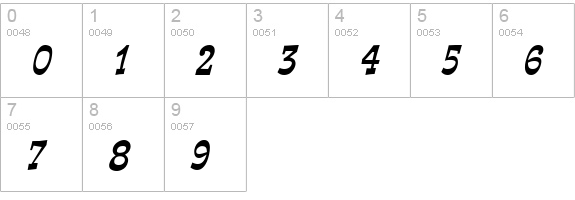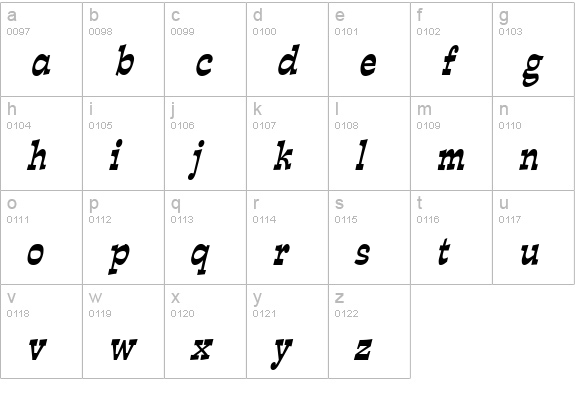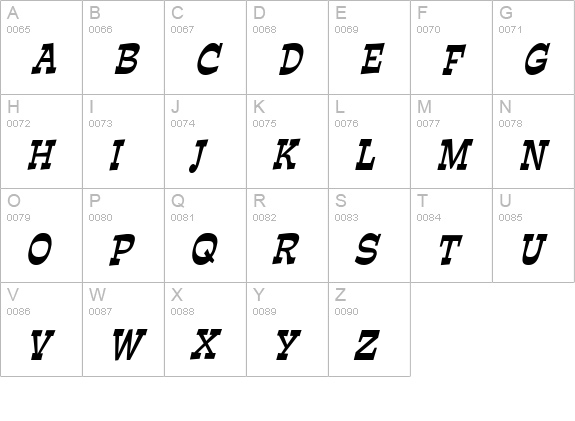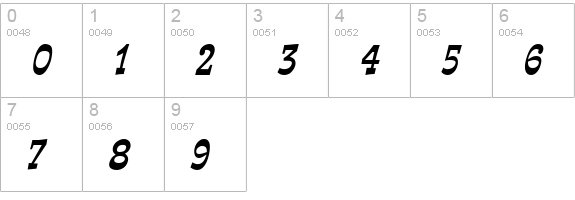
Expose Condensed Italic is a distinctive, condensed-width, italic variant in the Expose typeface family \xE2\x80\x94 well suited to design and typography projects.
Expose Condensed Italic is a sleek and modern font designed to make a statement. Its slanted style adds a touch of sophistication and flair to any design project. This font is perfect for creating eye-catching headlines, branding materials, or stylish invitations. With its condensed form, Expose Condensed Italic is space-efficient and ideal for projects where every inch of space counts. What's even better is that Expose Condensed Italic is available for free download at FontsMarket.com. This means you can easily access this elegant font and use it in your projects without any cost. Don't miss out on the opportunity to add Expose Condensed Italic to your font collection and elevate your designs with its sleek and stylish aesthetic.